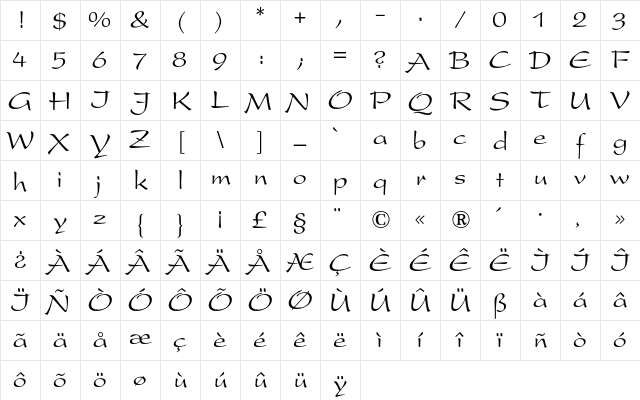
Present BQ Regular
Design Context for Present BQ
Present BQ is a composed and adaptable typeface that performs quietly and consistently across a wide range of design contexts.